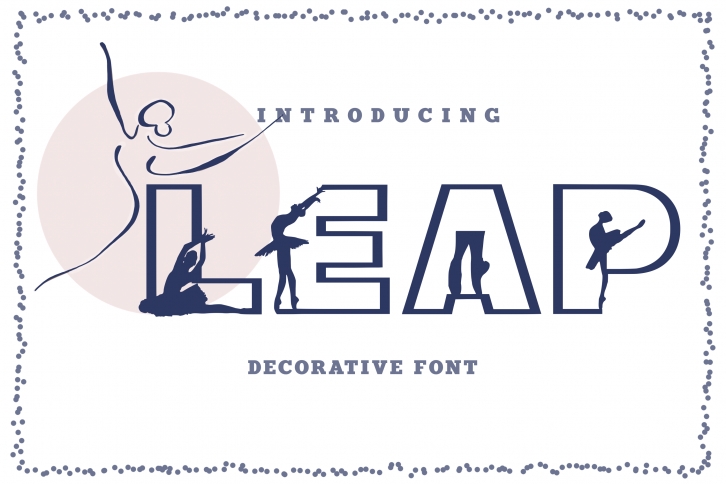
Leap is a ballet themed, incredibly unique decorative font. It is perfect for posters, stickers, designs or branding business.
This font will instantly make your posters looks outstanding.